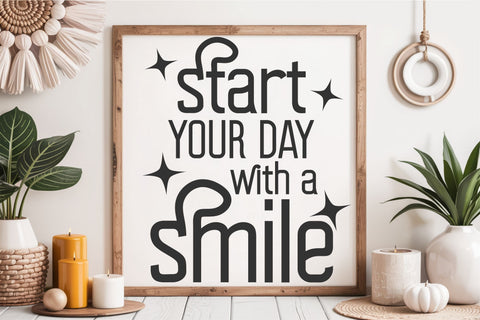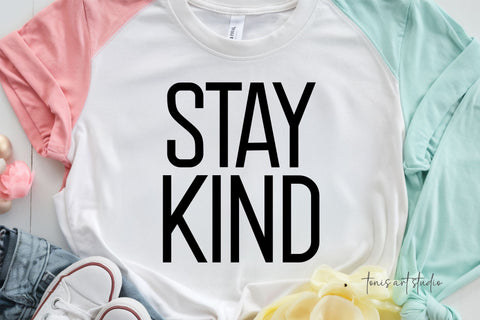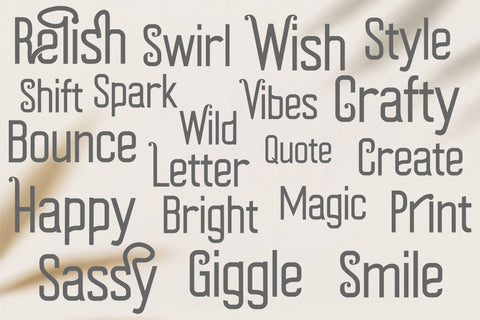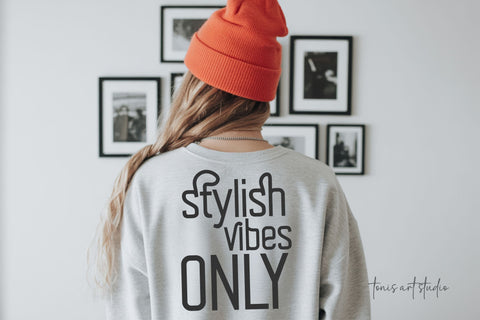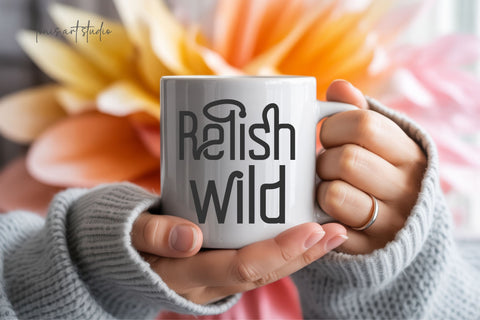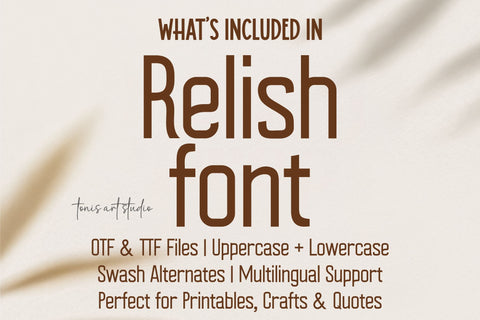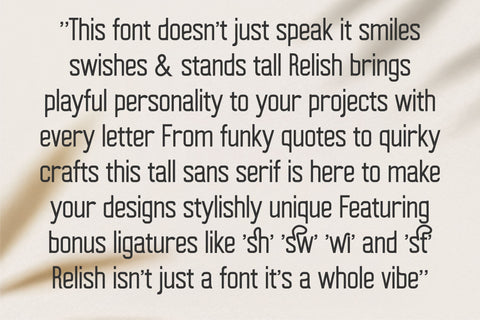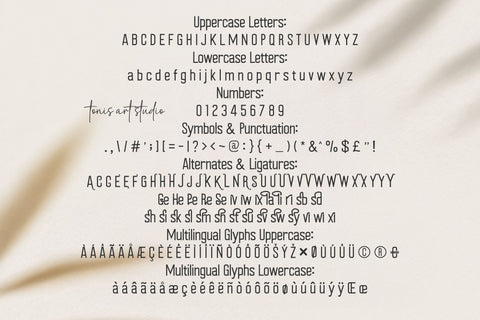
Relish Font – Handwritten Tall Sans Serif for Quotes & Crafts
Introducing Relish Font – a modern tall handwritten sans serif typeface with playful curves and swash alternates. Perfect for quotes, crafts, printables, branding, shirts, mugs, and more. Relish includes uppercase, lowercase, numbers, symbols, multilingual support, and unique ligatures like sh, sw, sf, wi. This font adds a fun personality to your designs while remaining clean and versatile. Whether you're a Cricut user, a designer, or a small business owner, Relish is your new go-to font for stylish, eye-catching text. Comes in OTF and TTF file formats and is compatible with design software like Cricut Design Space, Silhouette Studio, Canva, Adobe Illustrator, and more. Let your designs stand tall and shine with Relish!
✓ Relish Font – Tall sans serif with alternates
✓ Uppercase and lowercase letters, numbers, punctuation
✓ Bonus stylistic alternates & swash ligatures (sh, sw, He, Pe, etc.)
✓ Multilingual support included
✓ Perfect for crafts, quotes, branding, mugs, and more
The Relish Font is perfect for designers, crafters, and creatives who love fonts with structure and soul.